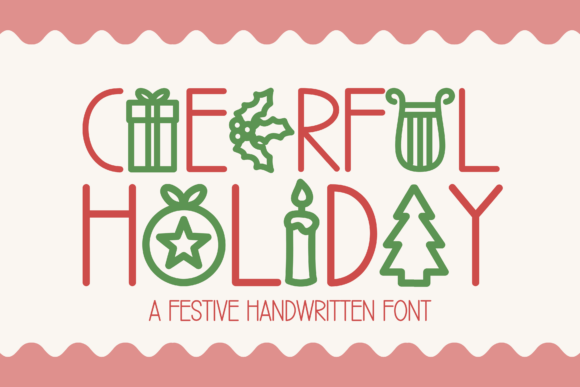
Introduction to Cheerful Holiday Font
Cheerful Holiday is a festive decorative font filled with joyful Christmas charm.
Its playful letterforms feature delightful special accents in some characters, adding a fun surprise to your designs without overwhelming the readability Perfect for holiday cards, seasonal invitations, gift tags, posters, and cozy winter crafts, Cheerful Holiday brings a bright, cheerful spirit to every project with its warm and whimsical personality.